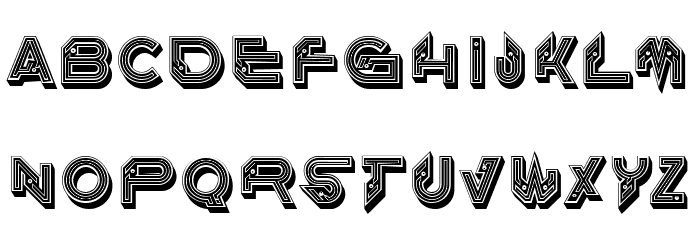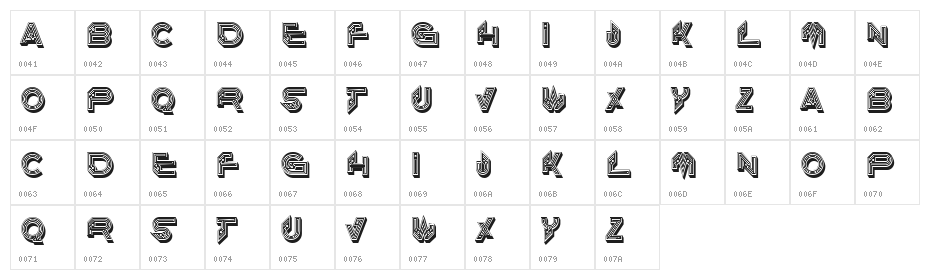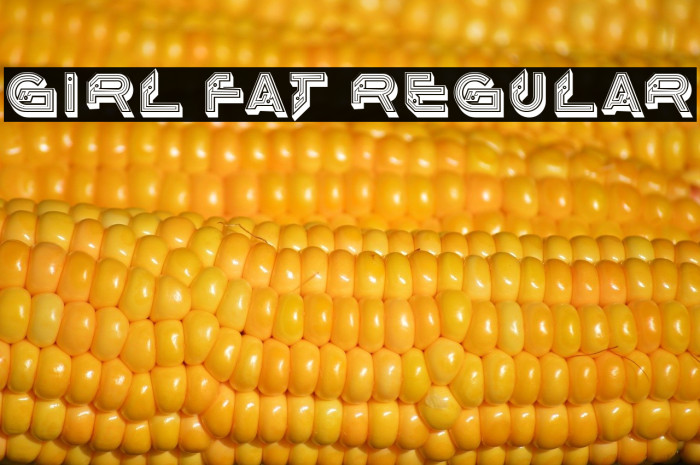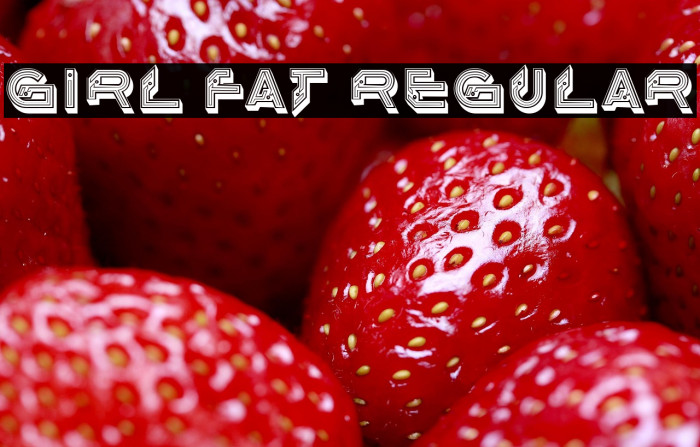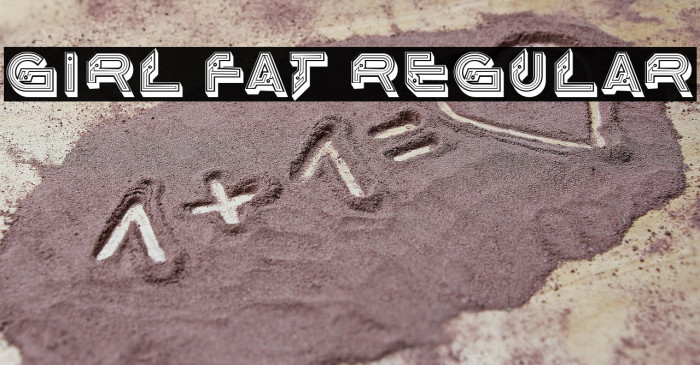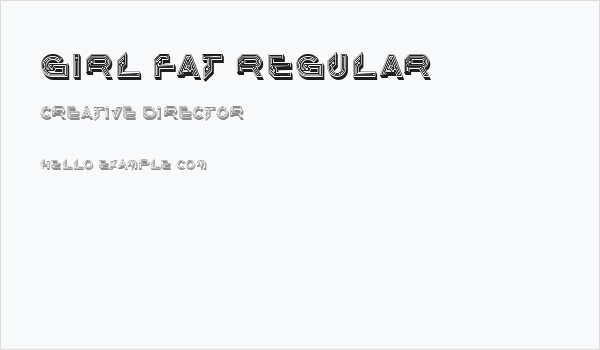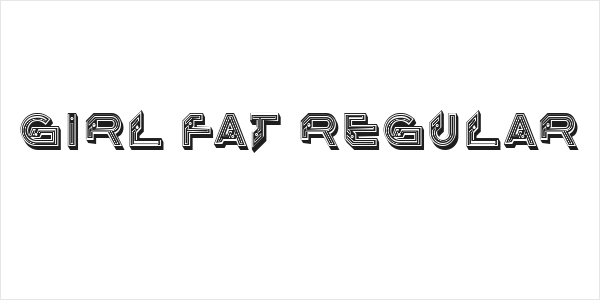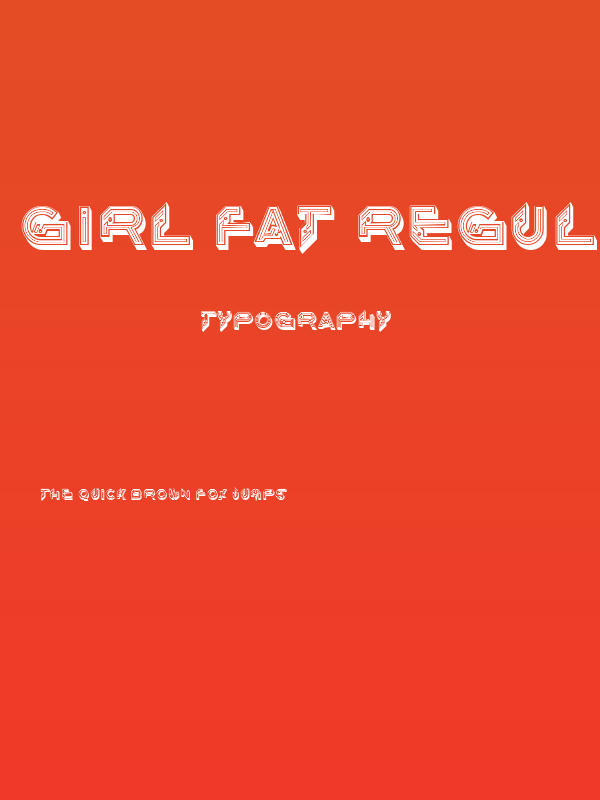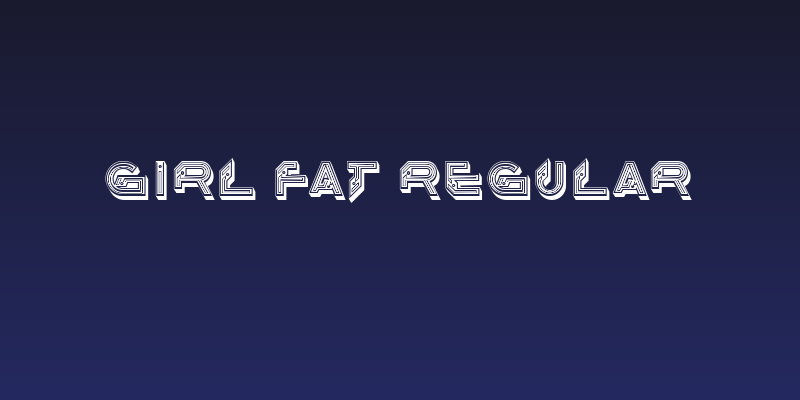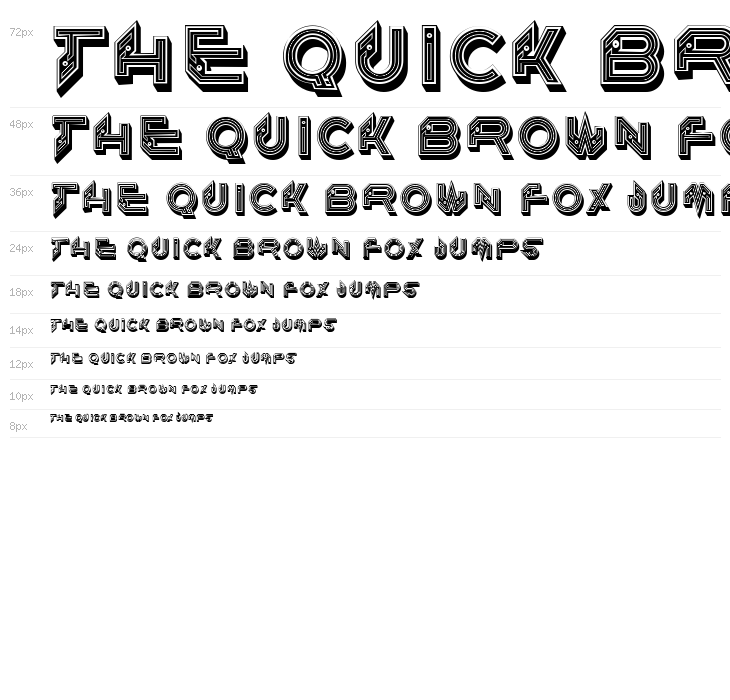
Girl Fat Regular Font
Girl Fat Regular Description
This font features a bold, geometric design with a futuristic and decorative flair. Each character is constructed with multiple layers and outlines, creating a three-dimensional effect. The intricate patterns within each letter give it a unique, tech-inspired appearance. The uppercase letters are particularly striking, with sharp angles and a sense of movement. The font's style is consistent across all characters, maintaining a cohesive look that is both eye-catching and modern.
| Overall Style | Futuristic, Decorative |
| Proposed Projects | Ideal for sci-fi themed designs, tech branding, posters, and digital artwork. |